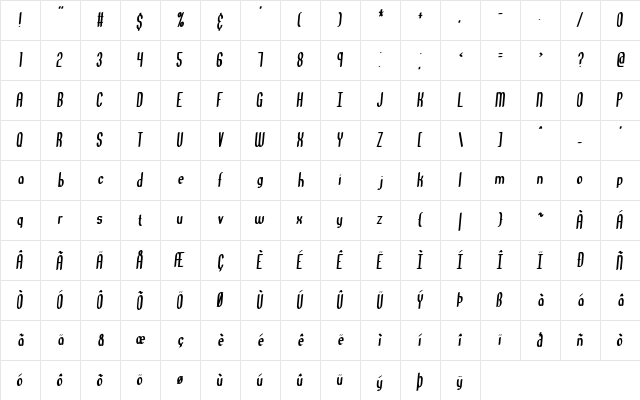
Great Heights BRK Normal
| Foundry | ƎIGMA FONTS |
| Designer | ƎIGMA FONTS - Brian Kent |
Design Context for Great Heights BRK Typeface
Great Heights BRK takes a measured approach to typography — its balanced proportions and neutral character make it a reliable workhorse for both digital and print work.